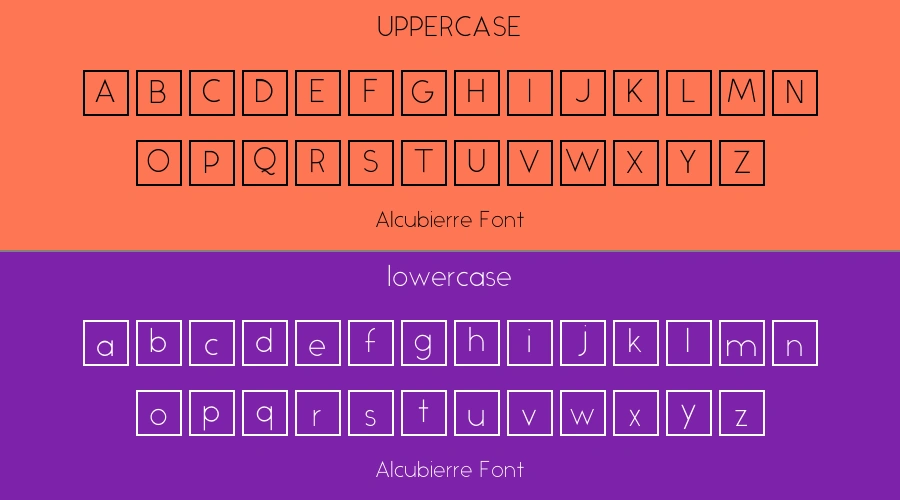
About Alcubierre Font
Designed with precision, Alcubierre Font merges decorative alternates with professional grade in every character. This versatility makes it particularly effective for environmental graphics, where reliability and application safety directly impact communication quality. Each letterform demonstrates meticulous craftsmanship.
Technical excellence shines through elements like original character and authentic details, enhancing typographic versatility. In historical documents settings, Alcubierre Font proves its worth through superior emotional response. The thoughtful execution of spur details and lifestyle alignment ensures professional results.
Alcubierre Font |